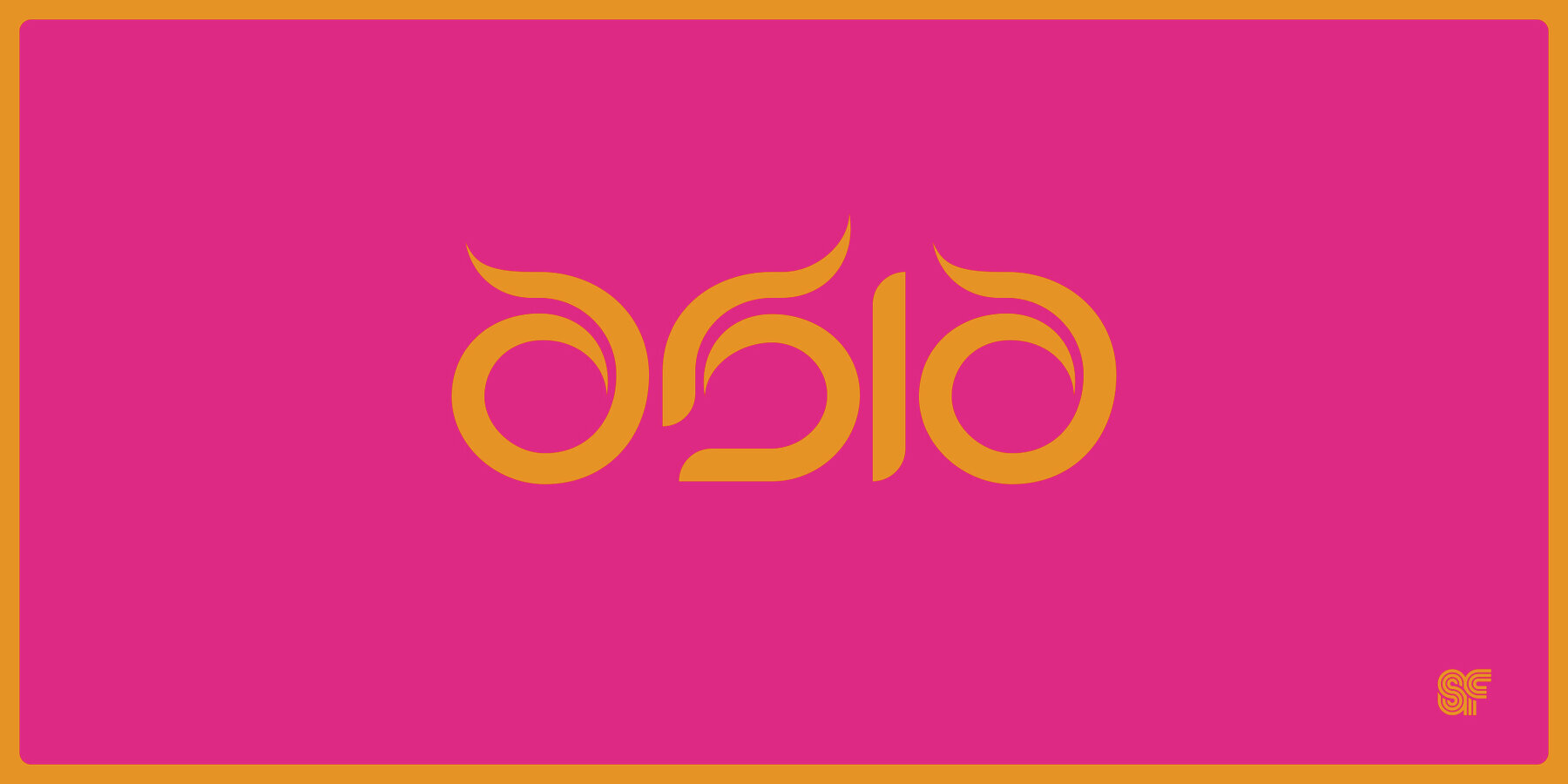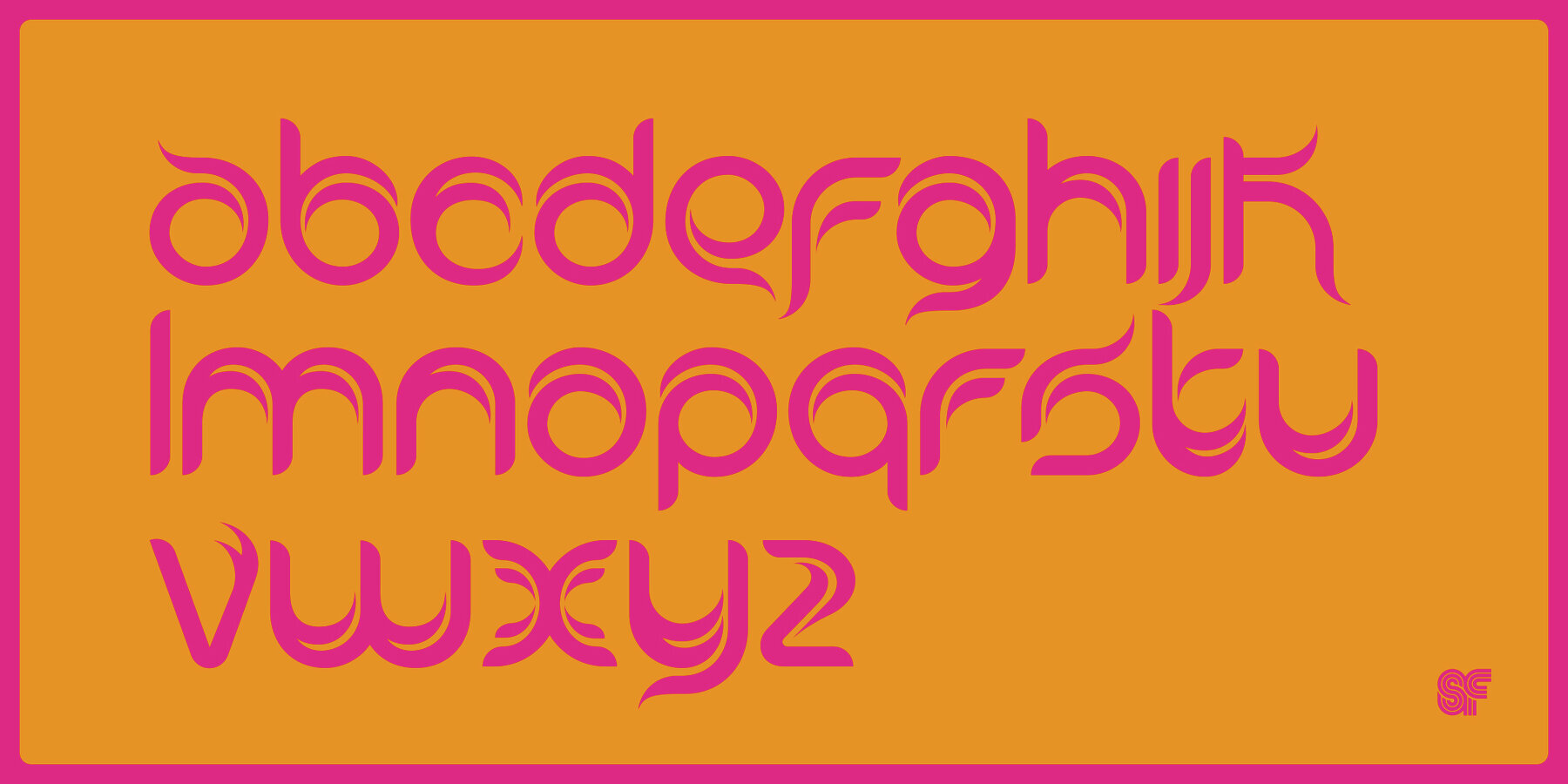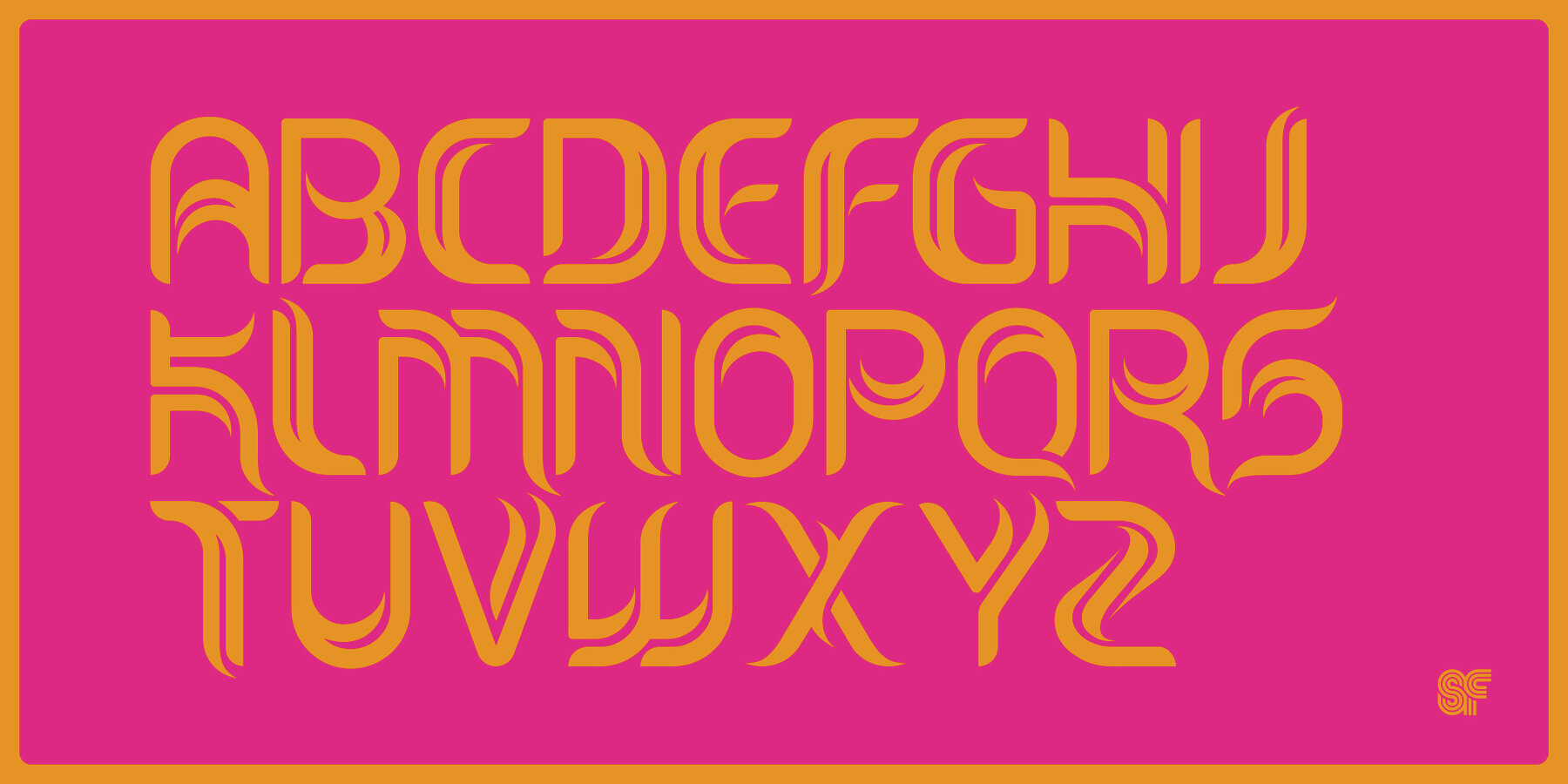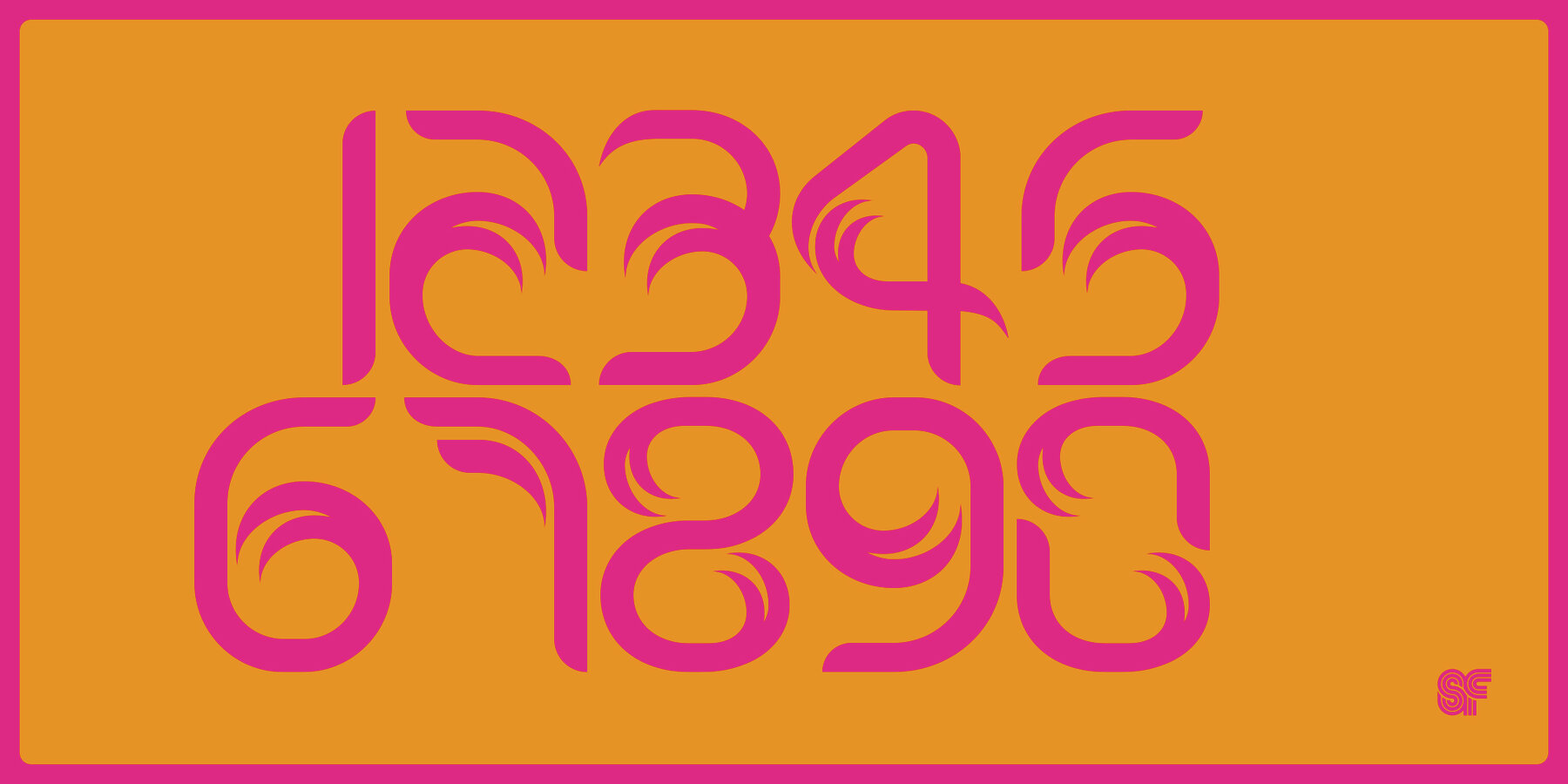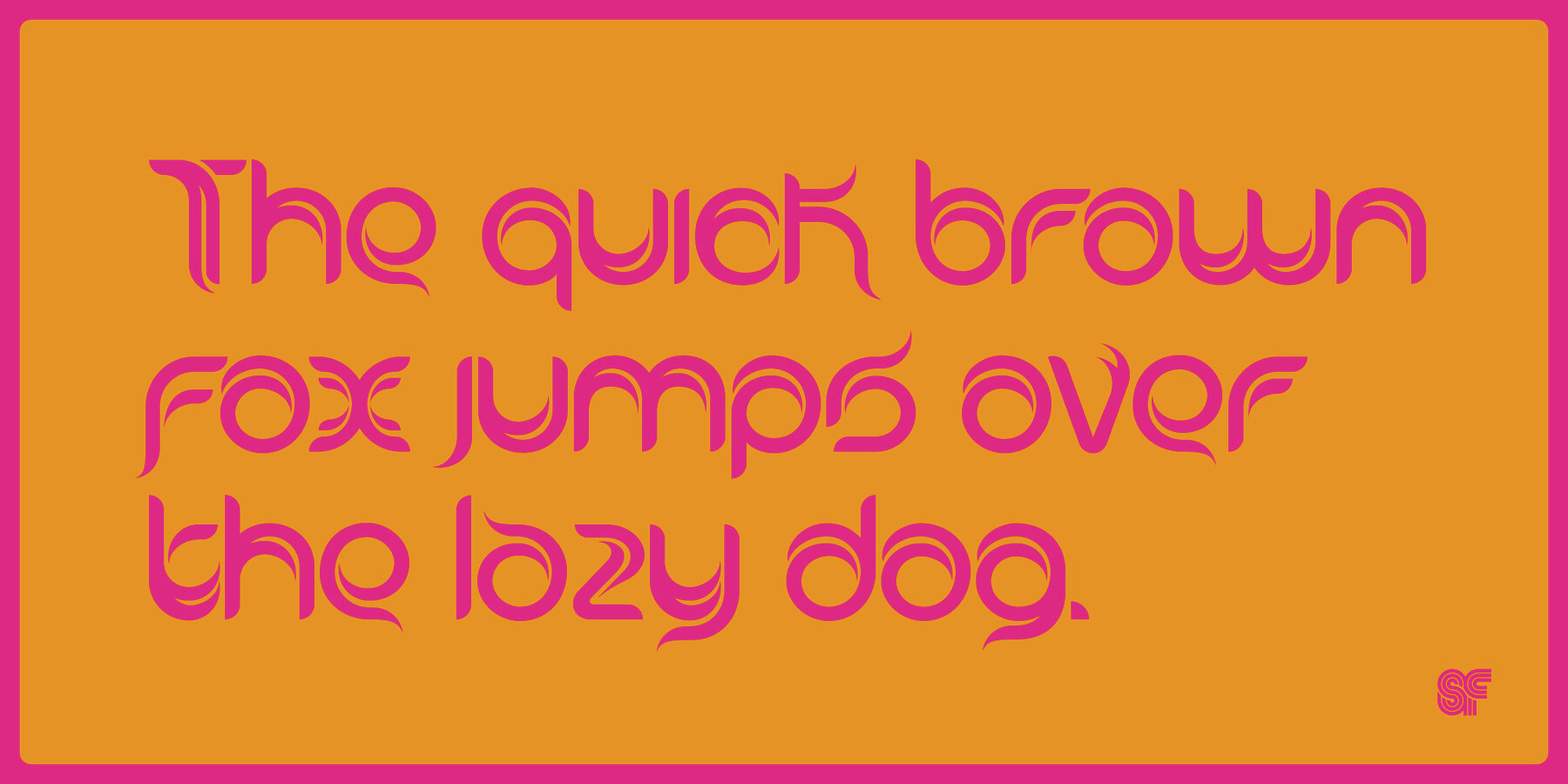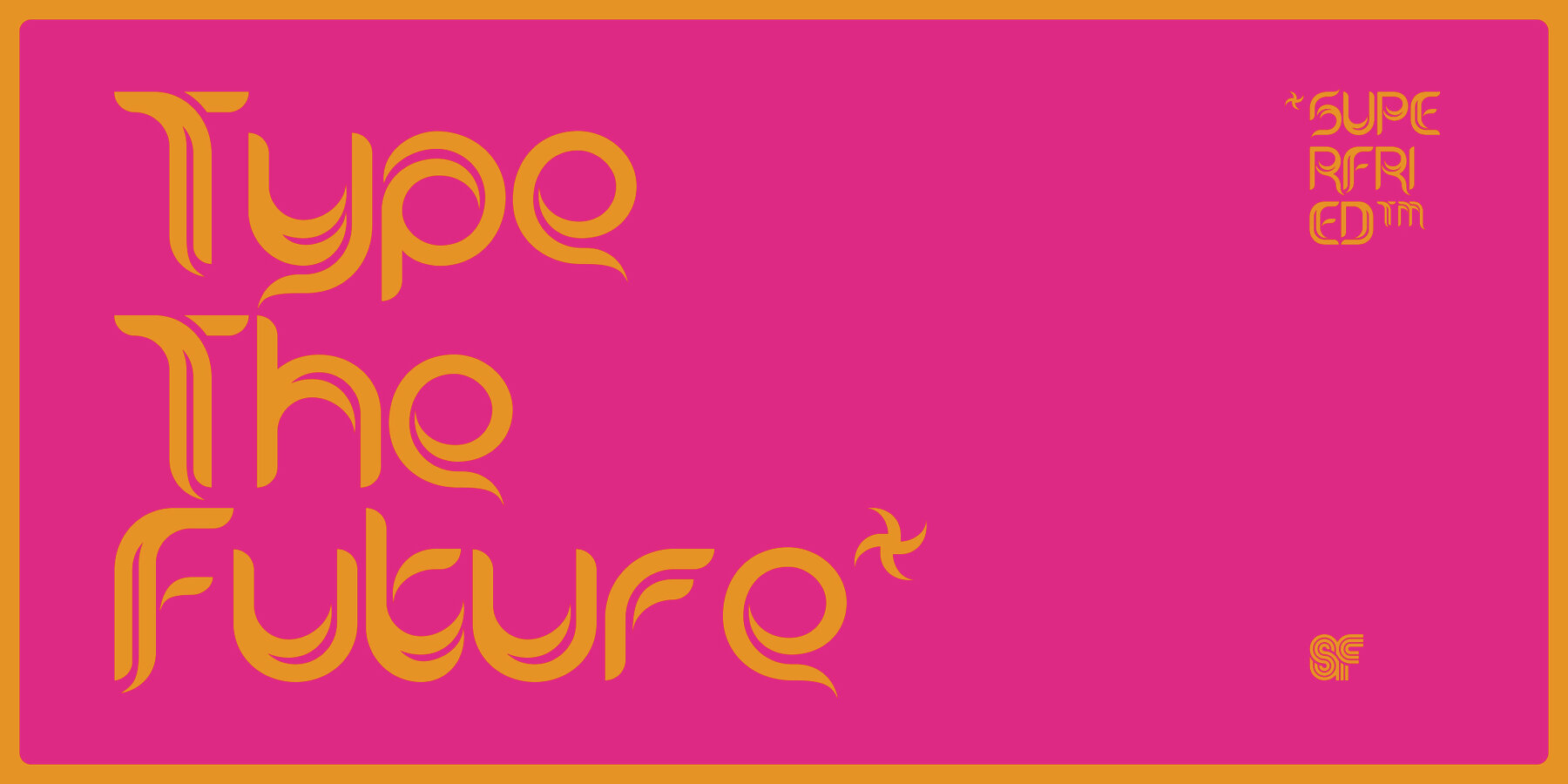
Asia by Superfried is an ornate, display typeface inspired by trips throughout the continent. Its distinct, bold style has been designed to evoke the curves and beautiful intricacy of Asian typographic characters and patterns.